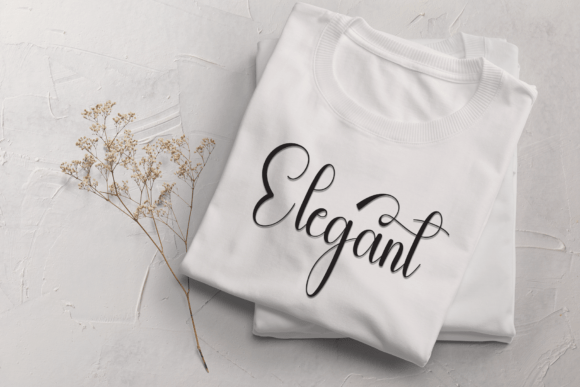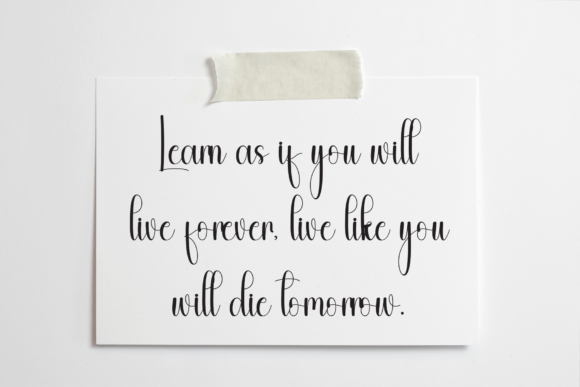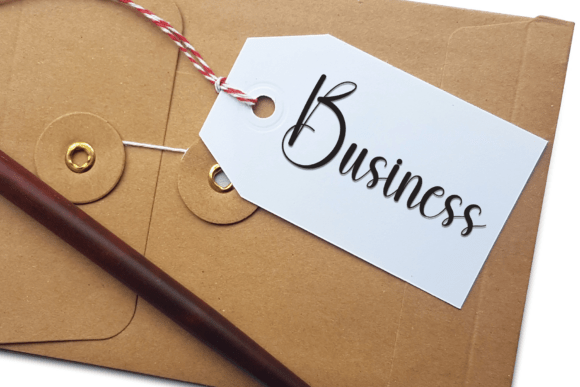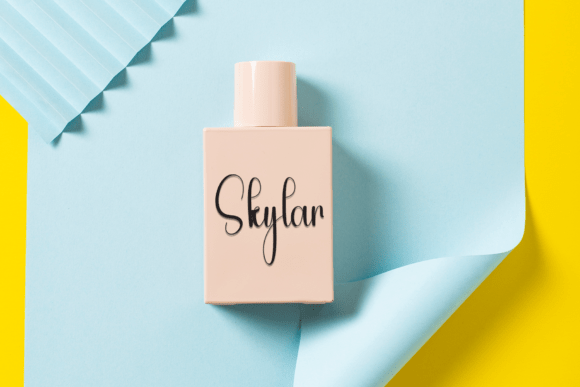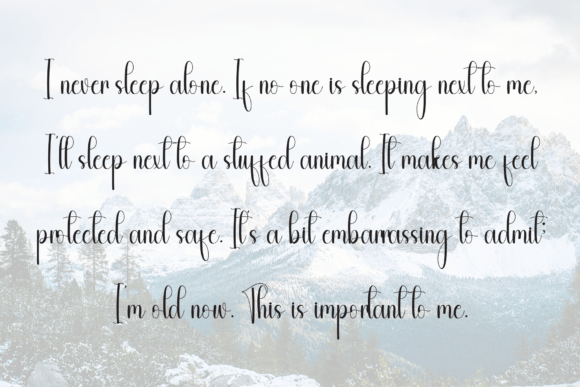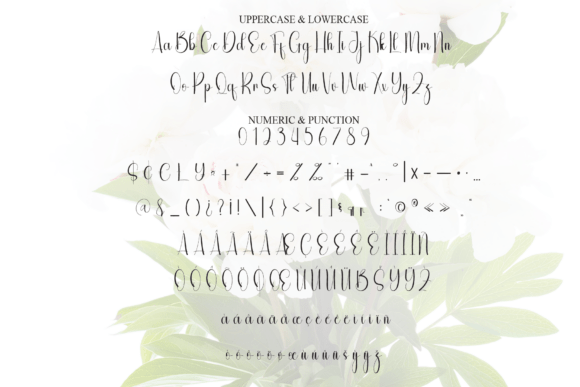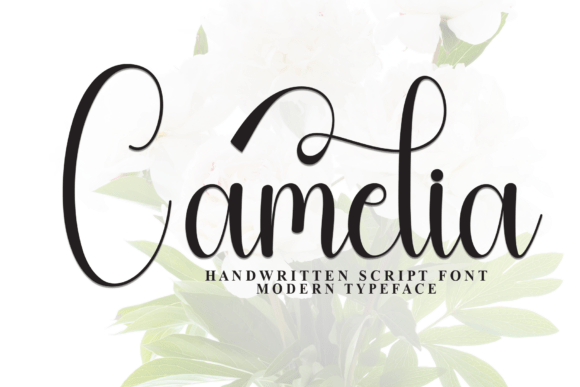
Introducing Camelia Font: Elevate Your Designs with Artistic Flair and Contemporary Elegance
In the world of typography, few fonts manage to strike a balance between artistic expression and modern sophistication. Camelia Font is one such exceptional typeface that brings together the fluidity of brush strokes, the dynamism of curves, and the expressiveness of letterforms to create a truly unique visual experience. This stylish script font is designed to infuse your designs with a creative and sophisticated touch, making it perfect for a wide range of applications, from logos and invitations to packaging and social media graphics.
The Artistry of Camelia Font
Camelia Font is inspired by the art of hand-painted calligraphy, but with a modern twist that sets it apart from traditional script fonts. Its fluid brush strokes and dynamic curves give it a natural flow that is both visually striking and engaging. Each letterform is carefully crafted to convey a sense of movement and energy, making it ideal for designs that require a touch of elegance and sophistication.
One of the standout features of Camelia Font is its expressive letterforms. Each character is designed to be unique, yet harmonious with the others, creating a sense of continuity and flow. This makes it perfect for use in long-form text, such as invitations, quotes, and social media posts, where readability and visual appeal are essential.
Versatility and Application
Camelia Font is incredibly versatile, making it suitable for a wide range of design applications. Here are some of the ways you can use this beautiful font to elevate your designs:
- Logos: Create a lasting impression with a custom logo that showcases your brand’s personality and style. Camelia Font’s unique blend of artistic flair and contemporary elegance makes it perfect for businesses that want to stand out from the crowd.
- Invitations: Add a touch of sophistication and glamour to your invitations, whether it’s for a wedding, birthday party, or corporate event. Camelia Font’s elegant script style is sure to impress your guests and set the tone for a memorable occasion.
- Packaging: Make your products stand out on store shelves with eye-catching packaging that features Camelia Font. Its modern and artistic style is perfect for brands that want to convey a sense of luxury and quality.
- Social Media Graphics: Create engaging social media graphics that showcase your brand’s personality and style. Camelia Font’s expressive letterforms and fluid brush strokes make it perfect for use in Instagram posts, Facebook graphics, and Twitter headers.
Why Choose Camelia Font?
With so many fonts available, why choose Camelia Font for your design projects? Here are just a few reasons why this exceptional typeface stands out from the rest:
- Unique and Expressive: Camelia Font’s unique blend of artistic flair and contemporary elegance makes it a standout in any design. Its expressive letterforms and fluid brush strokes add a touch of personality and style to any project.
- Versatile: Whether you’re designing a logo, invitation, or social media graphic, Camelia Font is incredibly versatile and adaptable. Its modern style makes it suitable for a wide range of design applications.
- High-Quality: Camelia Font is designed to deliver high-quality results, with crisp and clear letterforms that look great in any size or resolution.
Camelia Font is a truly exceptional typeface that brings together artistic expression and modern sophistication. Its fluid brush strokes, dynamic curves, and expressive letterforms make it perfect for designers and crafters who want to add a creative and sophisticated touch to their designs. With its versatility, high-quality design, and unique style, Camelia Font is an excellent choice for any design project that requires a touch of elegance and artistic flair.